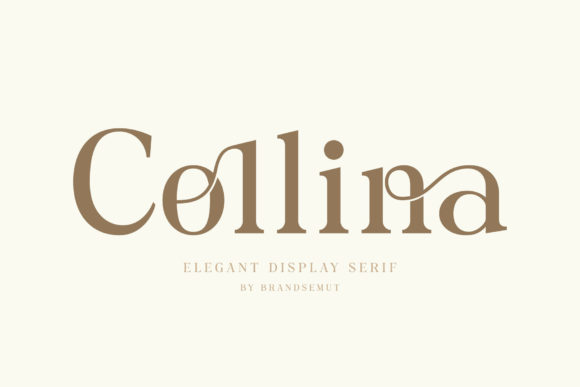
Introducing Collina Font: Elevate Your Designs with Elegance and Sophistication
In the world of typography, a font can make or break a design. For designers and crafters seeking to add a touch of elegance and modernity to their work, Collina Font is an exceptional choice. This stunning serif font boasts a classy and contemporary look, making it perfect for a wide range of applications, from logos and branding to invitations, stationery, wedding designs, social media posts, and beyond.
What Makes Collina Font Stand Out?
Collina Font is not just another serif font; it’s a masterpiece of typographic design. Its distinct characteristics set it apart from other fonts, making it an ideal choice for designers looking to create unique and memorable designs. Here are some of the key features that make Collina Font a standout:
- Elegant and Refined: Collina Font exudes elegance and sophistication, making it perfect for high-end branding, luxury logos, and refined designs.
- Modern Twist: Despite its classic serif structure, Collina Font has a modern twist that gives it a fresh and contemporary look, suitable for modern designs and digital applications.
- Versatile: Collina Font is incredibly versatile, allowing designers to use it for a wide range of projects, from print materials like invitations and stationery to digital applications like social media posts and website headers.
- Legible: The font’s clear and legible design ensures that it remains readable even at small sizes, making it perfect for body text and captions.
Use Cases for Collina Font
Collina Font’s versatility makes it suitable for a wide range of design projects. Here are some of the many use cases for this exceptional font:
- Logos and Branding: Create a lasting impression with a custom logo or brand identity that exudes elegance and sophistication.
- Invitations and Stationery: Add a touch of luxury to your invitations, business cards, and letterheads with Collina Font’s refined design.
- Wedding Designs: Make your wedding designs truly unforgettable with Collina Font’s elegant and romantic look.
- Social Media Posts: Elevate your social media presence with stylish and engaging posts that showcase your brand’s personality.
- Websites and Blogs: Enhance your website or blog’s typography with Collina Font, creating a cohesive and professional look.
Tips for Using Collina Font Effectively
To get the most out of Collina Font, here are some expert tips to keep in mind:
- Pair with Complementary Fonts: Combine Collina Font with complementary fonts to create visual interest and hierarchy in your designs.
- Experiment with Colors: Try out different color schemes to find the perfect match for your design and brand identity.
- Pay Attention to Spacing: Ensure that your text has sufficient spacing to maintain readability and visual flow.
- Use Font Variations: Take advantage of Collina Font’s variations to create visual hierarchy and add emphasis to specific design elements.
Collina Font is a game-changer for designers and crafters seeking to elevate their designs with elegance and sophistication. Its unique blend of classic and modern elements makes it perfect for a wide range of applications, from logos and branding to social media posts and wedding designs. With its versatility, legibility, and refined design, Collina Font is sure to become a staple in your typographic arsenal.